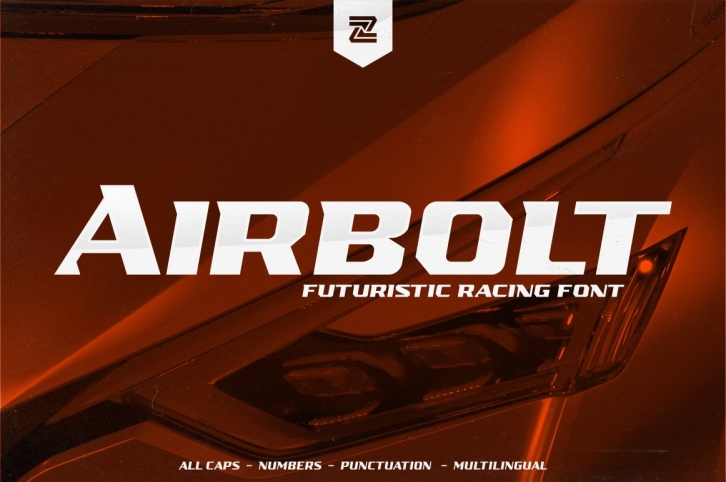
AIRBOLT is a trendy and unique font with an authentic style. It was designed by Zealab and it's a great choice for creative people who need such a font. It was released on June 23, 2020 and the file size is 2.1 MB. AIRBOLT will add an organic vibe to any design idea!